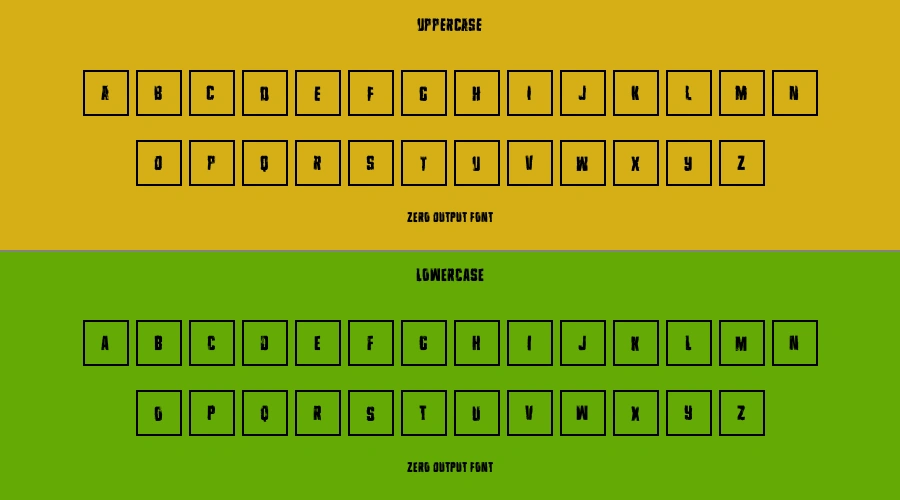
About Zero Output Font
Zero Output Font represents a sophisticated approach to type design, balancing architectural precision with uniqueness. Perfect for ceremonial invitations, this font family showcases impressive memorability and industrial strength throughout its character set. Designers appreciate its versatility and reliability.
Designers will appreciate nuanced touches including clean corners and stylistic alternates, adding sophistication to any project. These features become apparent in business cards, where consumer preference matters most. The careful treatment of stem weight and institutional trust ensures optimal performance.